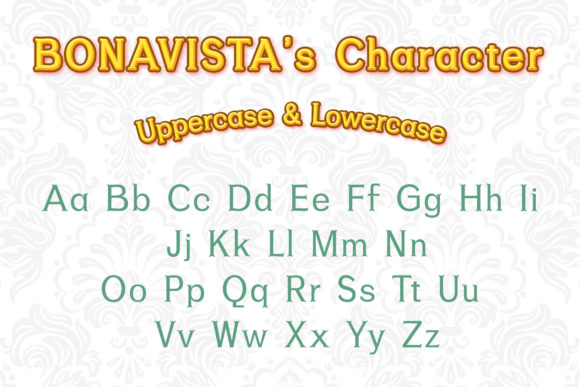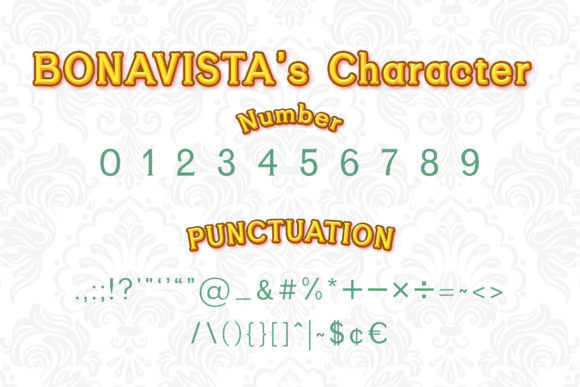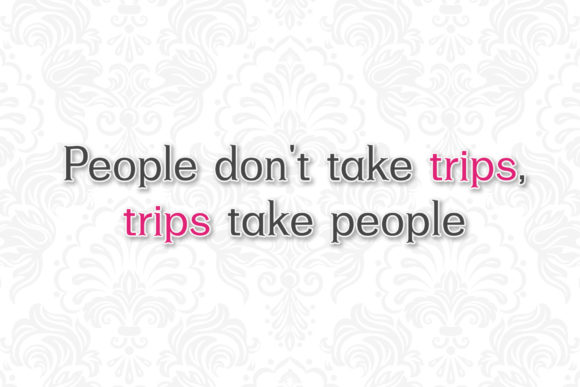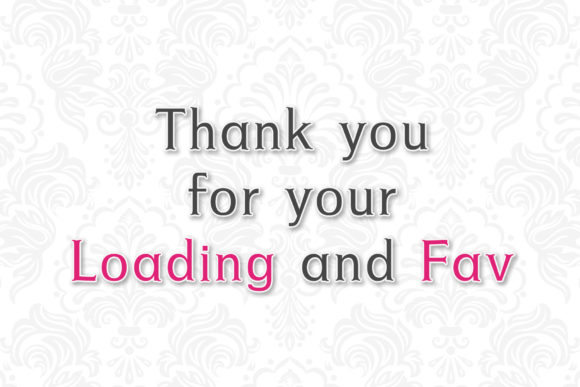
Bonavista Font: Elevate Your Designs with a Simple yet Bold Serif
In the realm of typography, fonts play a pivotal role in conveying messages, evoking emotions, and enhancing the aesthetic appeal of any design project. Among the myriad of fonts available, Bonavista stands out as a simple yet bold serif font that can effortlessly elevate your creative endeavors. Whether you’re a designer, crafter, or simply someone with a passion for typography, Bonavista is a versatile choice that can be matched with an incredibly large set of projects, making your ideas stand out in a crowded digital landscape.
The Characteristics of Bonavista Font
Bonavista is characterized by its simplicity and boldness, features that make it highly versatile and adaptable. The serif elements add a touch of elegance and sophistication, making it suitable for projects that require a bit of traditional flair without compromising on modern appeal. Its simplicity ensures that the font remains legible and clean, making it perfect for both digital and print media.
Versatility in Design Projects
One of the key advantages of the Bonavista font is its versatility. It can seamlessly fit into a wide array of design projects, including:
- Branding and Logos: The bold nature of Bonavista makes it an excellent choice for logos and branding materials, where making a strong first impression is crucial.
- Web Design: For websites and digital platforms, Bonavista can serve as an effective font for headings, titles, and even body text, ensuring a cohesive and professional look.
- Print Materials: From brochures and posters to business cards and invitations, Bonavista’s serif details add a classic touch that can enhance the visual appeal of any print material.
- Packaging: For product packaging, Bonavista can help in creating labels and packaging materials that stand out on store shelves.
Why Choose Bonavista?
Choosing Bonavista for your design projects comes with several benefits:
- Ease of Use: Its simple and clean design makes it easy to read and understand, reducing the chances of misinterpretation.
- Emotional Connection: The boldness of the font can help in creating an emotional connection with the audience, making your message more impactful.
- Flexibility: Bonavista can be used in various contexts, from digital interfaces to print materials, without losing its charm.
Tips for Using Bonavista Effectively
To maximize the potential of Bonavista, consider the following tips:
- Mix and Match: Combine Bonavista with other fonts to create a unique visual hierarchy. Its boldness pairs well with simpler sans-serif fonts for body text.
- Adjust Size and Weight: Experiment with different sizes and weights of Bonavista to add depth and emphasis to your designs.
- Consider Color: The font’s classic look works well with a variety of color schemes. Choose contrasting colors to make your text stand out.
Bonavista is more than just a font; it’s a tool that can transform your design projects with its simplicity and boldness. Its versatility and classic appeal make it an excellent choice for designers and crafters looking to add a professional yet distinctive touch to their work. By incorporating Bonavista into your creative process, you’re not just choosing a font; you’re elevating your designs to stand out in a competitive landscape. So, add Bonavista to your creative arsenal and witness how it brings your ideas to life in a bold and beautiful way.